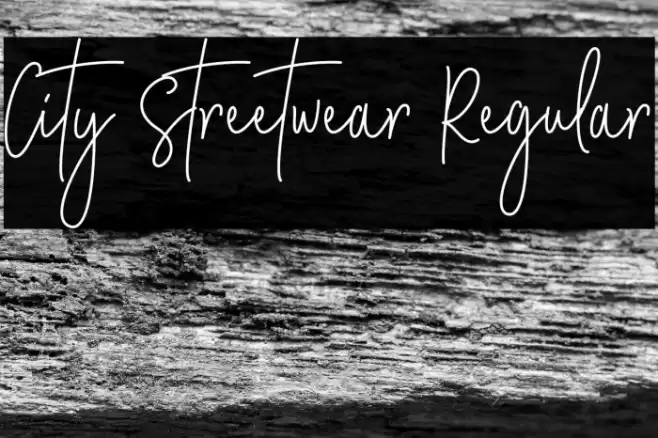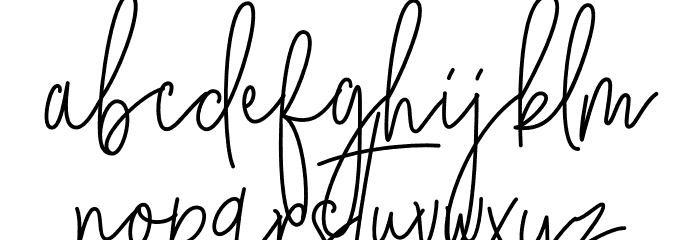
City Streetwear Regular Font
City Streetwear Regular Description
This font exudes a dynamic and urban vibe, characterized by its handwritten style that mimics the fluidity and spontaneity of street art. The letters are elongated and slightly slanted, giving them a sense of motion and energy. The strokes are thin and consistent, creating a sleek and modern appearance. The uppercase and lowercase letters maintain a cohesive style, with a playful yet sophisticated flair. The font's unique character is further enhanced by its irregular baseline, adding to its casual and informal feel. It's perfect for projects that aim to capture a youthful and edgy aesthetic.
| Use Case | Logos, Headlines, Creative projects |
| Proposed Projects | Ideal for branding, fashion design, streetwear labels, and creative posters. |